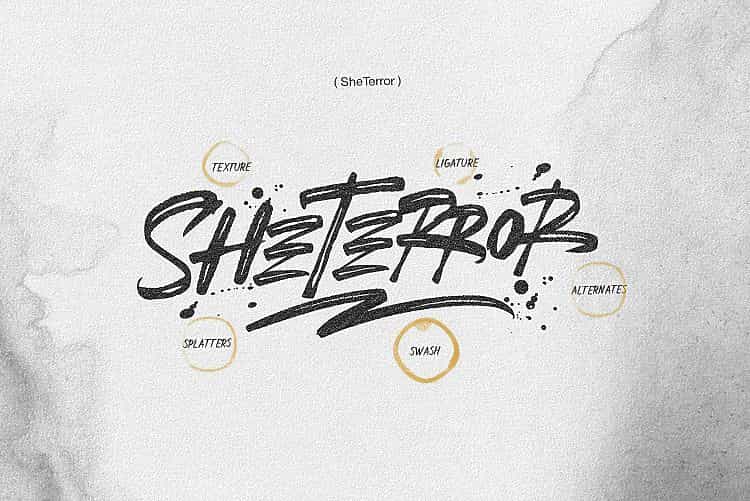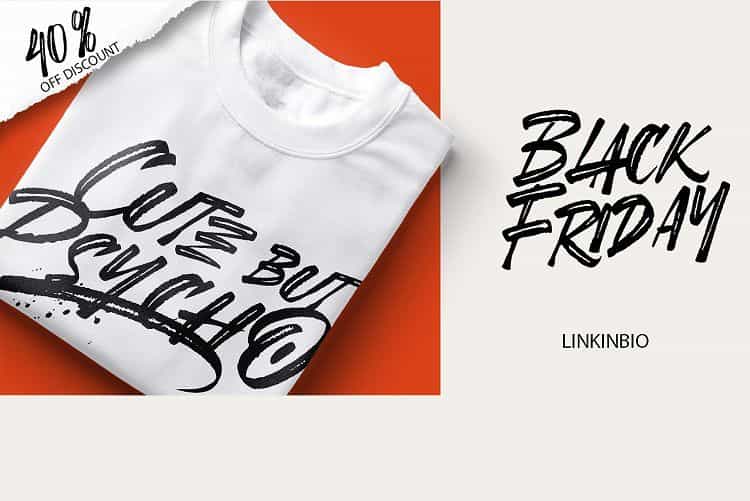
Introducing SheTerror Brush Font. It is designed and shared by NUGS. Following the example of the cola pen, SheTerror also has this style though not as close to that of a simple cola pen …because it is made with an iPad. The raw energy in this font can easily change any graphic design project into a bold statement. It is the best for Instagram quotes, movie and book covers, blogs as well as any kind of marketing material.